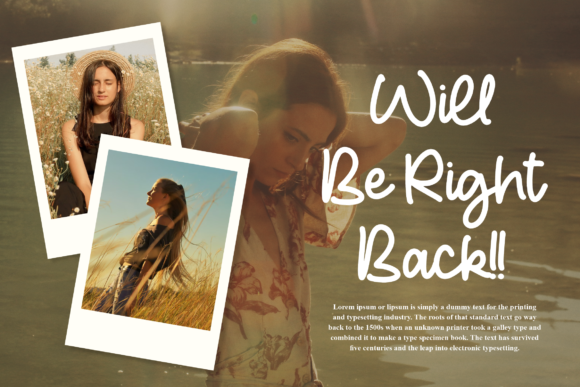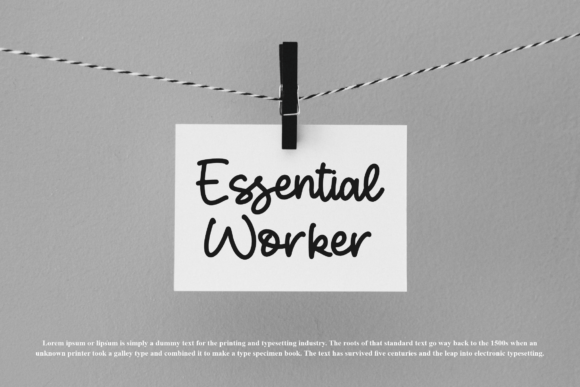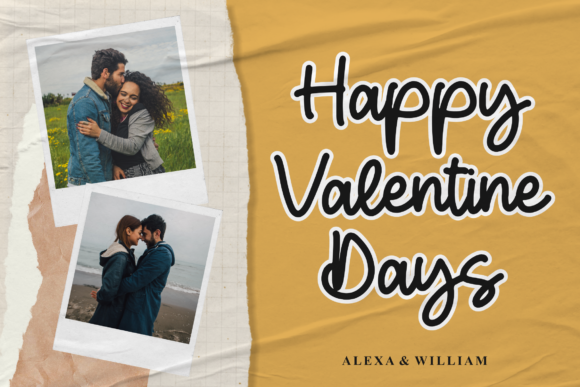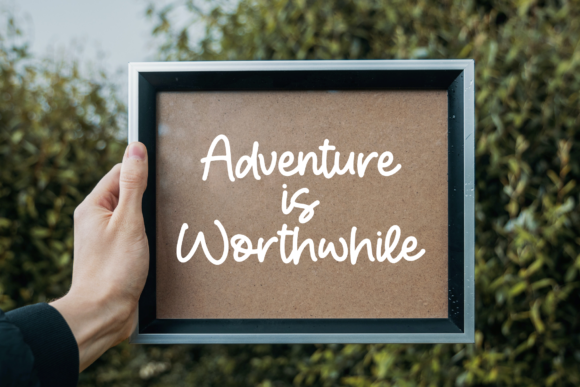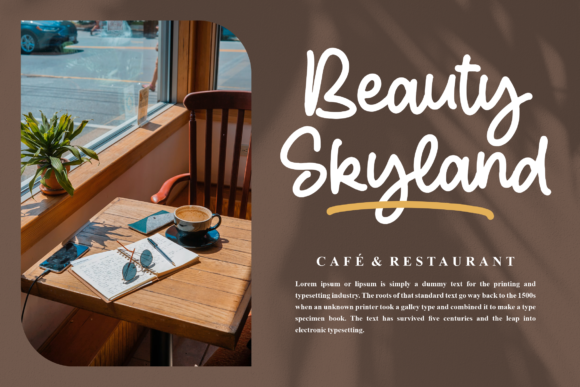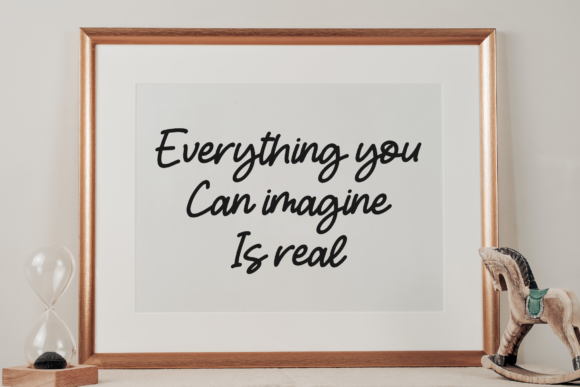
Introduction to Remonade Font
Have you ever found yourself staring at a blank canvas, waiting for that perfect spark of creativity to strike? It’s moments like these that remind us why we love design so much – the thrill of bringing a new idea to life, the satisfaction of watching it grow into something beautiful.
As designers, we’re always on the lookout for that special something that sets our projects apart. And today, we’re excited to introduce you to the Remonade Font – a stunning monoline script font that’s sure to elevate your creative projects to the next level. With its high-quality design and transparent background, this versatile font is the perfect addition to any project, from logos and branding to homeware designs and product packaging.
Key Features of Remonade Font
- High-quality design: The Remonade Font is carefully crafted to provide a unique and elegant touch to any creative project.
- Transparent background: The Remonade Font features a transparent background, allowing for seamless integration with various design elements.
- Unique characteristics: The font features a distinctive, handwritten style with subtle flair and movement, adding a touch of personality to any design project.
- Design resource: The Remonade Font is an excellent addition to any designer’s collection, providing a versatile and stylish option for creative projects.
Honest Review: Remonade Font
- ✨ The Remonade Font is incredibly versatile, with a wide range of styles and weights to choose from.
- ✨ The font is highly customizable, making it easy to tailor to your specific design needs.
- ✨ The transparent background option is a huge bonus for designers who need to overlay text on images or other design elements.
Overall, I’m really impressed with the Remonade Font. It’s a fantastic design resource that’s perfect for personal projects or small businesses on a budget. With its high quality and versatility, it’s definitely worth checking out.
The Remonade Font is a high-quality, free download design resource perfect for any creative project. With its unique style and transparent background, it adds a touch of sophistication to any design.
Tips for Getting the Most Out of Remonade Font
For the best results, use the Remonade Font in conjunction with other high-quality design resources. Experiment with different font sizes, colors, and layouts to find the perfect combination for your design. You can also use the Remonade Font in combination with other design elements, such as images and graphics, to create a visually appealing design.
Common Use Cases for Remonade Font
The Remonade Font is perfect for a variety of creative projects, including logos, branding materials, business cards, and brochures. It’s also great for personal projects, such as invitations, party decorations, and photo albums. With its high-quality design and transparent background, the Remonade Font is a versatile design resource that can be used in a wide range of applications.